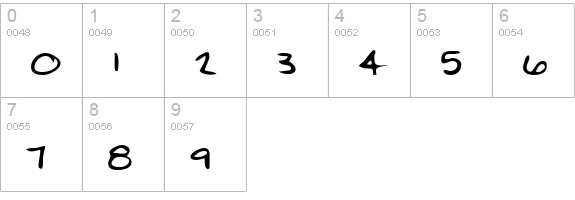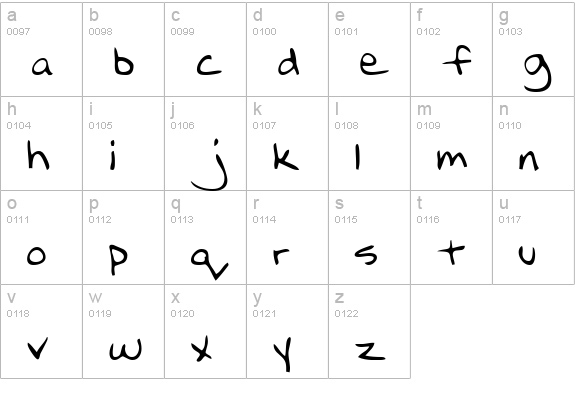
NellysHand Font Details
NellysHand font is a charming and versatile handwritten typeface that exudes warmth and personality. Its elegant and flowing strokes give any design a touch of sophistication and whimsy. Whether you're working on invitations, branding, or social media graphics, NellysHand is the perfect choice to add a personal and unique touch to your projects. Best of all, NellysHand font is completely free to download at FontsMarket.com. With its wide range of characters and ligatures, this font offers endless possibilities for creativity and customization. Don't miss out on the opportunity to enhance your designs with the beauty and elegance of NellysHand font. Download it today and let your creativity soar!